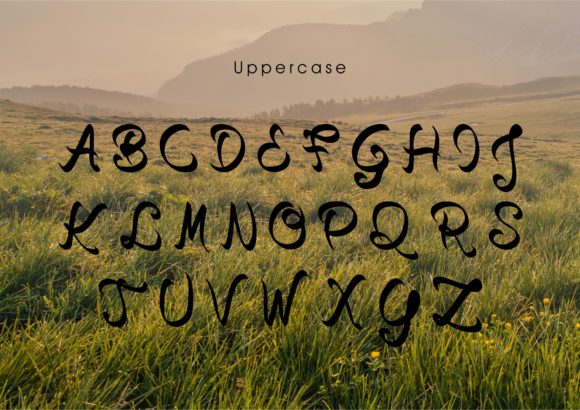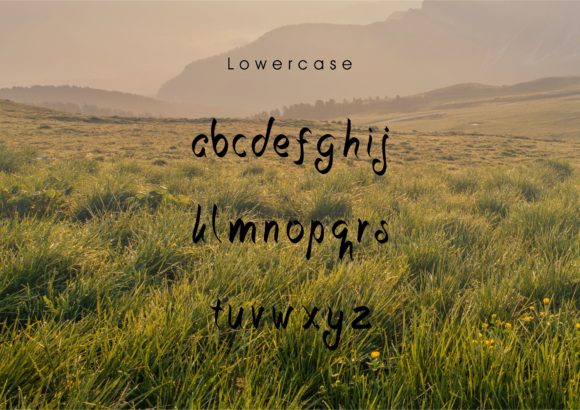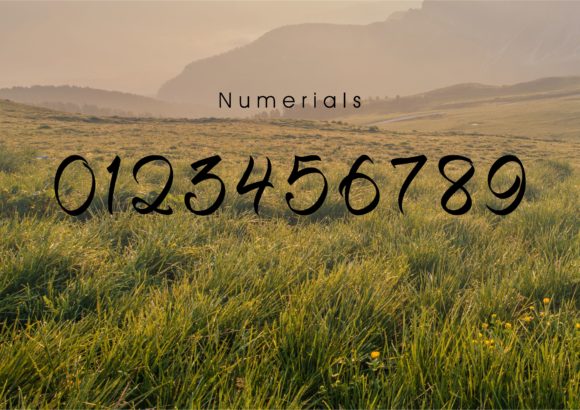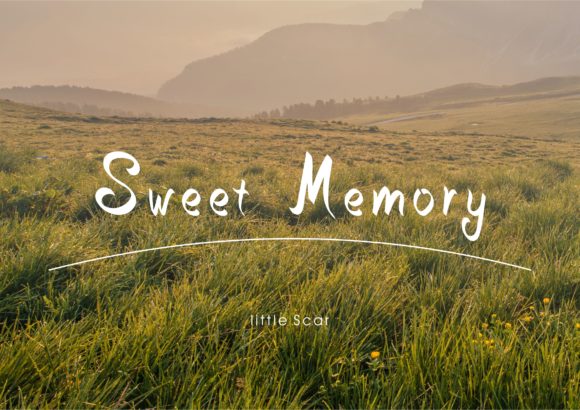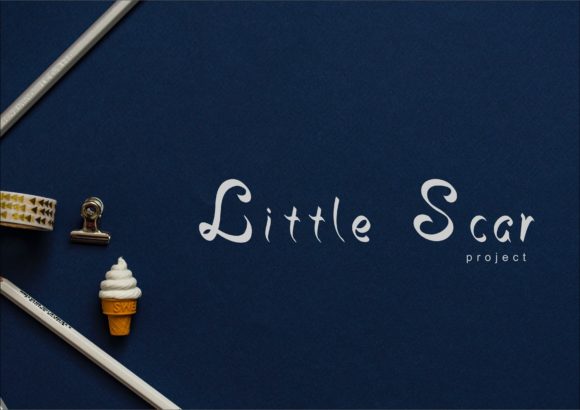
Opopo Dewe Font
About Opopo Dewe Font
Opopo Dewe is an extremely natural handwriting font. It has a casual feel and will add a personal spark to any design project!